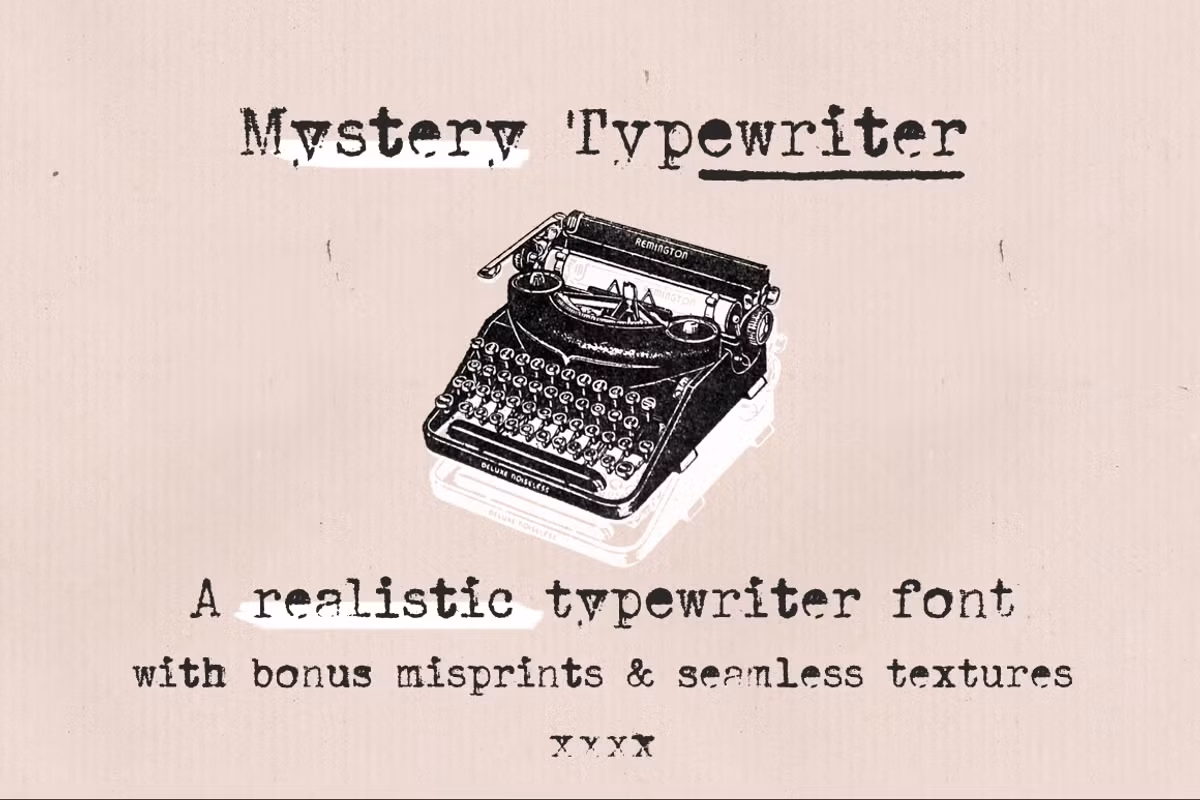
Mystery Typewriter Font Free Download is a vintage-inspired serif typeface that captures the gritty, nostalgic feel of old typewritten documents. With its slightly uneven characters and worn texture, this font is perfect for mystery novels, crime thrillers, historical projects, journal-style graphics, and retro branding.
It evokes the atmosphere of classic detective stories, secret files, and antique typewriters—making it an excellent choice for storytelling, editorial design, and creative work that needs a touch of intrigue.